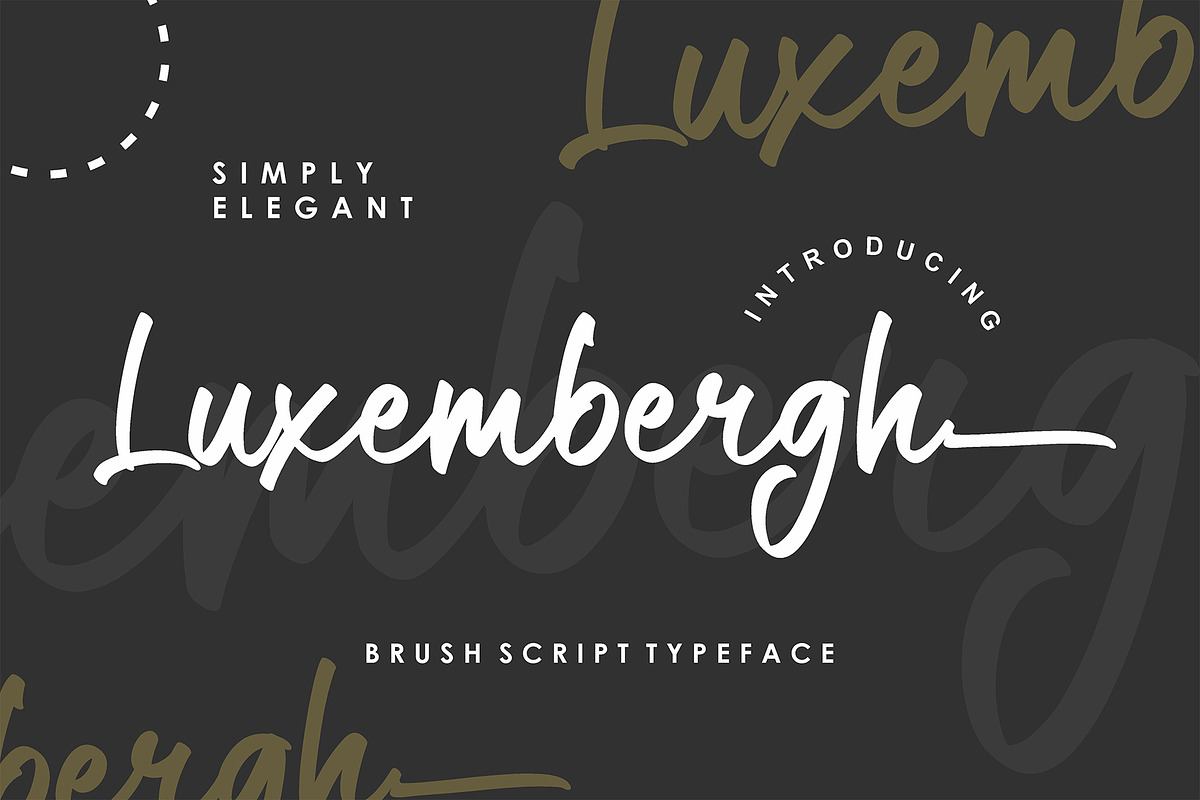
Luxembergh Handwritting Brush Free Download
Luxembergh Handwriting Brush Font Free Download
Luxembergh Handwriting Brush Font Free Download is a bold and expressive script typeface inspired by modern brush lettering. With dynamic strokes, textured edges, and a stylish handwritten feel, Luxembergh is perfect for branding, logos, apparel design, posters, social media graphics, and packaging that needs a confident, artistic touch.
This font combines the energy of hand-drawn brush script with high readability, making it ideal for both print and digital designs. Its natural flow and authentic brush details give your work a creative, handcrafted edge.